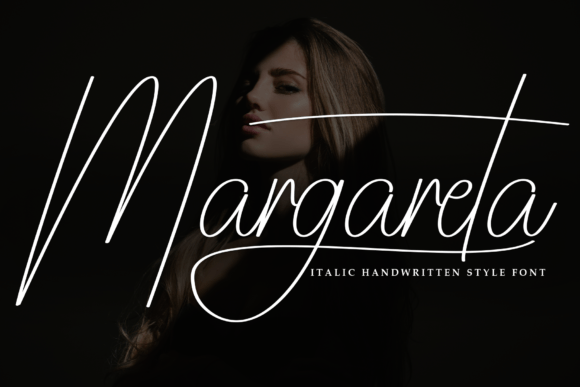
Behold Margareta, where calligraphy meets magic. Forged with meticulous precision and a dash of sophistication, Margareta promises to transform your designs into exquisite works of art. Step into a world of elegance, where every letter dances with grace and charm. With its sweeping strokes and enchanting curves, this script font will leave you spellbound.
Capture the beauty of handwritten notes with Margareta. Its effortless flow and authentic charm make it an ideal companion for crafting heartfelt messages and stunning invitations. Let your words dance across the page, adorned with the elegance of Margareta's curves.
Elevate Your Digital Canvas to an Aesthetic Masterpiece:
Whether you're crafting Instagram posts that inspire or crafting DIY projects that delight, Margareta adds an artistic touch that captivates. Each character is like a brushstroke, adding depth and dimension to your creations.
Unleash the Power of Signatures:
Craft signatures that exude authority and authenticity with Margareta. Its bold, sweeping strokes command attention, adding a touch of sophistication to electronic documents. Transform dull signatures into stylish statements that leave a lasting impression.
A Font That Resonates with Emotion:
Margareta is more than just a font; it's an emotional conduit. It evokes feelings of warmth and nostalgia, evoking memories of handwritten letters and cherished moments. Make your designs resonate with your audience on a deeper level, creating connections that last.